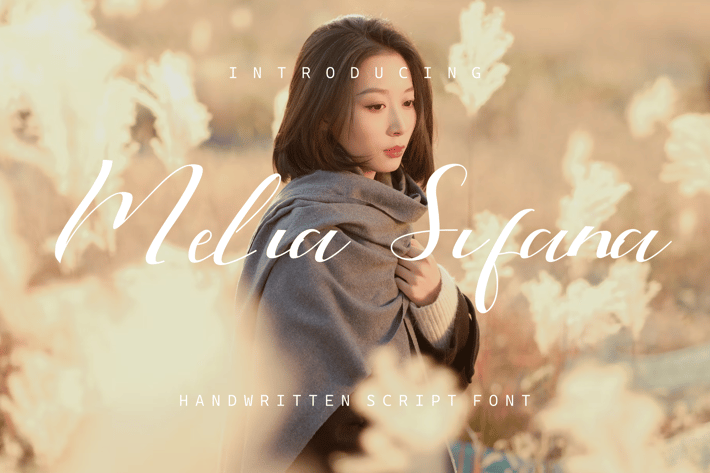
Melia Sifana Font.
Introducing our new product the name is Melia Sifana Font . Modern Decorative Fonts that feels beautiful classy, elegant, and modern. This font is perfectly suited for a wide variety of projects, such as signature, stationery, logo, wedding, typography quotes, magazine or book cover, website header, branding, packaging design, and more. Also, fashion-related branding or editorial design displays both masculine and feminine qualities.